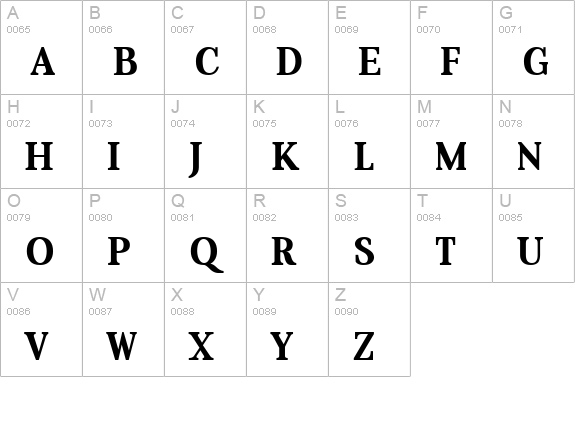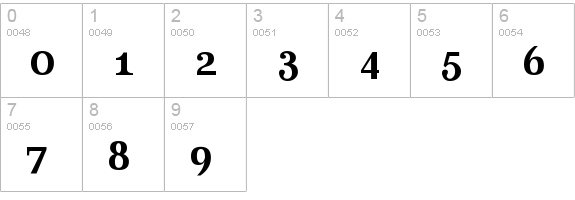
Aver Bold Font Details
Aver Bold is a strong, high-contrast variant in the Aver typeface family \xE2\x80\x94 well suited to headlines, attention-grabbing titles, and strong calls-to-action.
Introducing Aver Bold, a stunning font that combines elegance and modernity in perfect harmony. This versatile typeface exudes confidence and sophistication, making it ideal for a wide range of design projects. With its bold and eye-catching presence, Aver Bold commands attention and leaves a lasting impression. Featuring clean lines and a strong presence, Aver Bold is perfect for headlines, logos, branding materials, posters, and more. Its bold weight adds a touch of drama to any design, instantly elevating it to new heights. Whether you're designing for print or digital platforms, Aver Bold guarantees a striking and memorable visual impact. One of the most exciting aspects of Aver Bold is that it is free! That's right, this remarkable font is freely available for download at FontsMarket.com. Now you can enhance your creative projects without breaking the bank, while still achieving a high-quality and professional look. With its extensive character set, Aver Bold supports multiple languages, making it accessible to a global audience. Its legibility and clarity ensure that your message is delivered with utmost precision, regardless of the language or context. Furthermore, Aver Bold offers a range of stylistic alternates and ligatures, allowing you to customize and personalize your designs with ease. This font empowers you to unleash your creativity and create unique typographic compositions. So why wait? Download Aver Bold now and unlock its endless possibilities. Whether you're a seasoned designer or just starting out, this font is sure to become a valuable asset in your toolkit. Experience the power of Aver Bold and take your designs to the next level. Remember, it's free and readily available at FontsMarket.com, so don't miss out on this incredible opportunity!